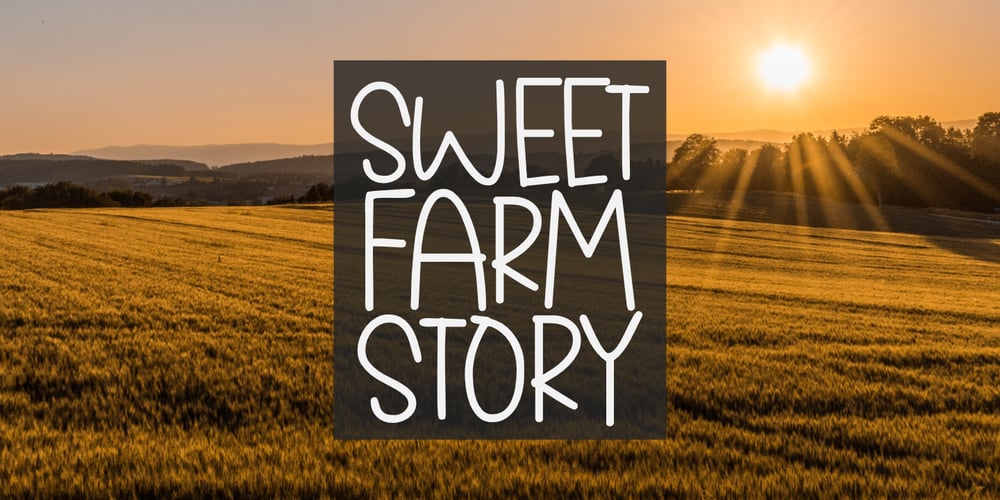
Sweet Farm Story Font Family was designed by Aldy Sidik and published by Epiclinez. Sweet Farm Story contains 1 styles and family package options. Sweet Farm Story is an informal and friendly handwritten font that can be used for all chalkboard quotes or teaching material! Its authentic look and feel will add a personal and realistic feel to your designs.This font supports Multi-Languages, including Afrikaans Albanian Catalan Danish Dutch English Estonian Finnish French German Italian Norwegian Portuguese Spanish Swedish Zulu.Features : Basic Latin All Caps Numbers, symbols, and punctuations Thank you